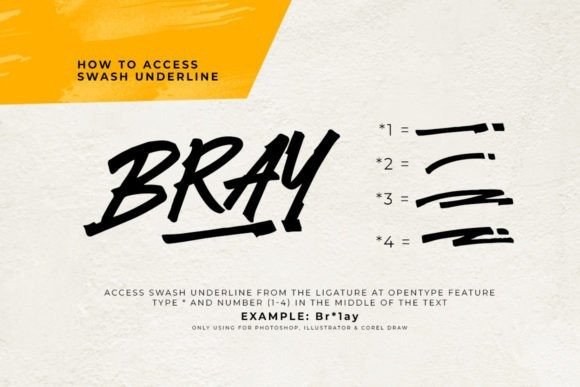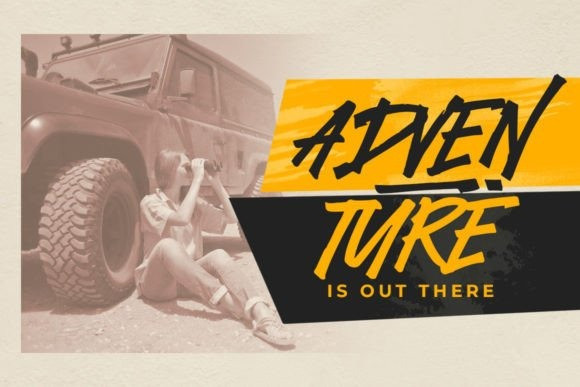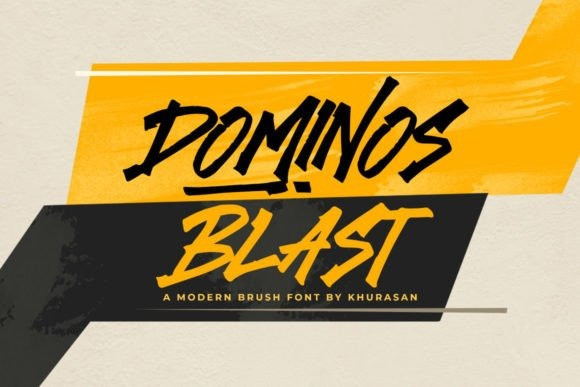
Dominos Blast Font
Dominos Blast Brush Font is a modern brush font perfect for posters, logos, magazines, book covers, banners, and many more! Get this quirky display font, and use it to create lovely designs!